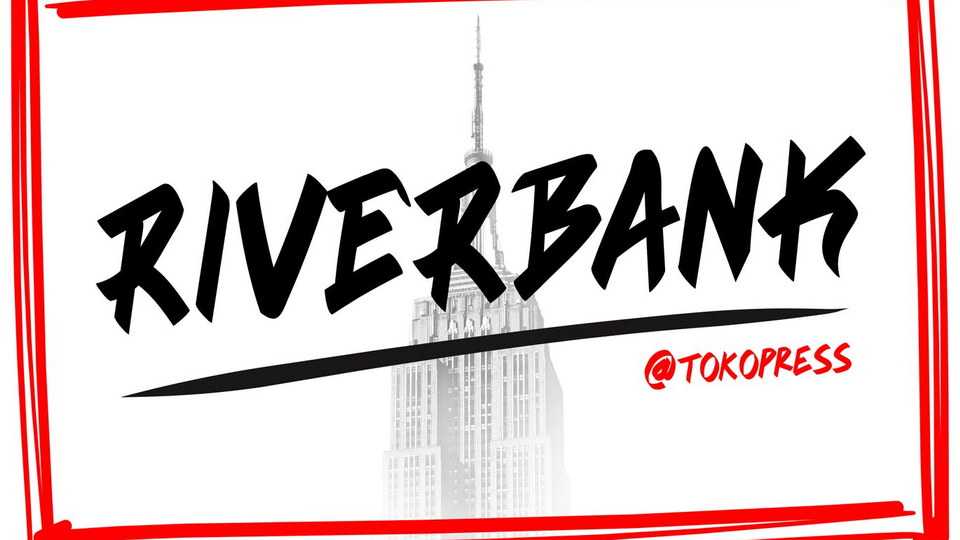
Download Riverbank font, an aggressive graffiti typeface. Like a roaring thunder that shouting messages, Riverbank brings the edgy and harsh word into reality.